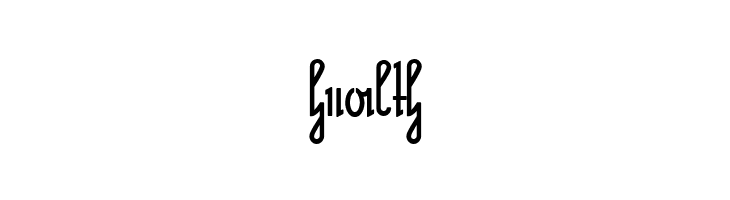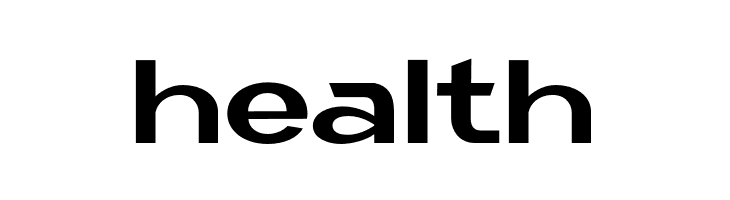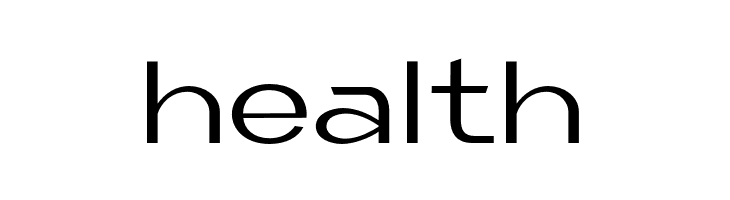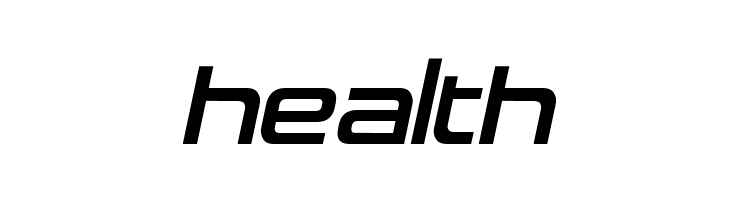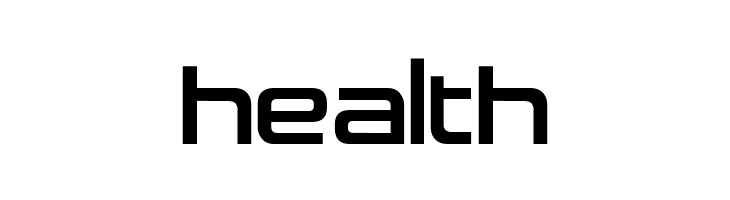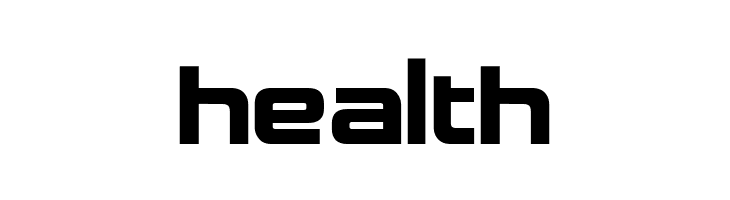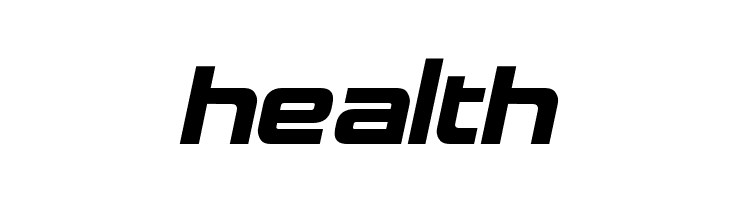
A modern, geometric sans-serif font with a bold and sleek design.
A bold, italicized font with angular lines and a modern, dynamic style.
A modern, semi-bold geometric font with clean lines and rounded edges.
A sleek, modern semi-bold italic font with medium contrast and geometric design.
A bold, modern sans-serif font with clean lines and geometric structure.
A modern, geometric sans-serif font with a clean and professional look.
A bold, decorative font with intricate loops and curves, perfect for artistic projects.
A bold, decorative font with intricate, flowing lines and artistic flair.
A bold, italic script font with flowing, interconnected letterforms.
A bold, italicized script font with dynamic, flowing characters.